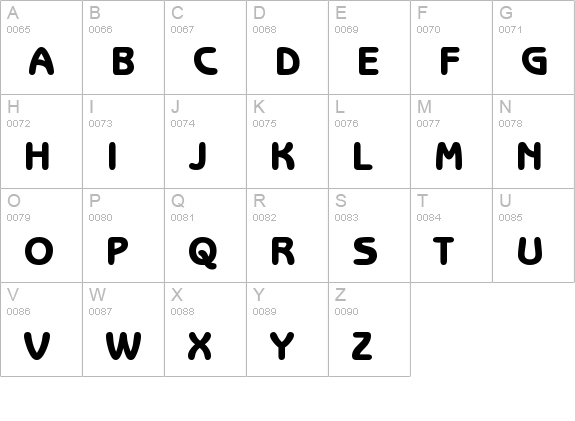
B691-Sans-Heavy-Regular is a heavy, high-impact variant in the B691 typeface family \xE2\x80\x94 well suited to high-impact headlines, posters, and display advertising.
B691-Sans-Heavy-Regular font is a bold and impactful typeface that exudes strength and modernity. With its clean lines and sturdy design, this font is perfect for making a statement in headlines, posters, logos, and branding materials. The robust characters of B691-Sans-Heavy-Regular command attention and convey a sense of reliability and professionalism. The best part about B691-Sans-Heavy-Regular font is that it is completely free to download at FontsMarket.com. This means that you can easily access this versatile and stylish typeface without any cost, making it a valuable addition to your design toolkit. Whether you're a graphic designer, a marketer, or a creative professional, B691-Sans-Heavy-Regular font offers endless possibilities for creating visually striking and memorable designs. Download it today and elevate your projects with this exceptional font choice.